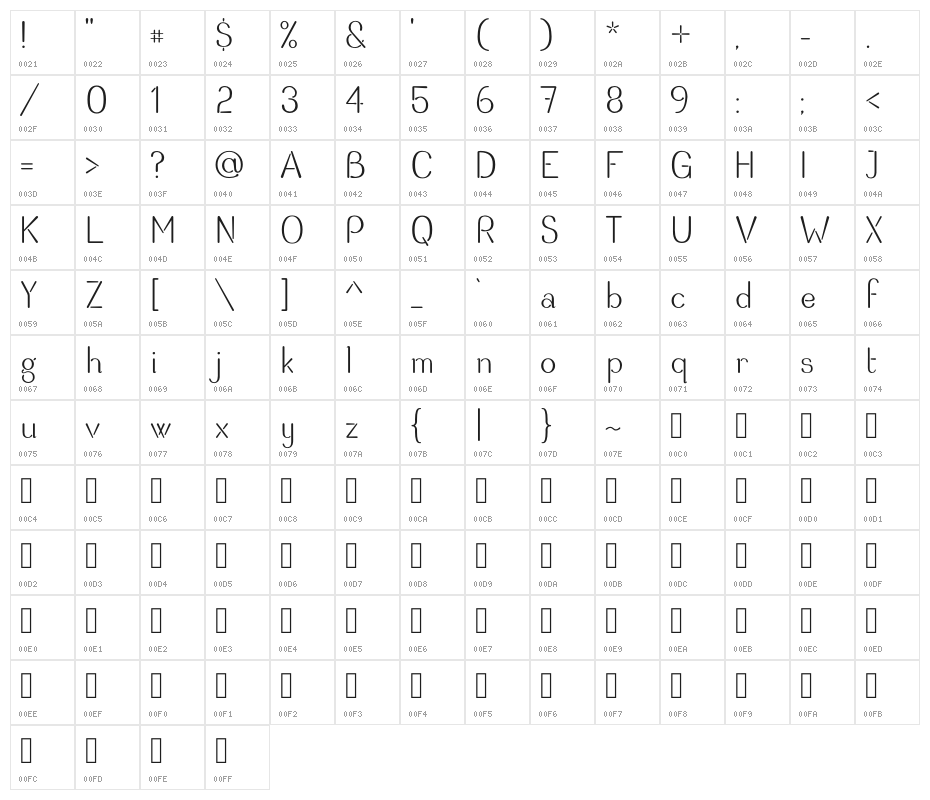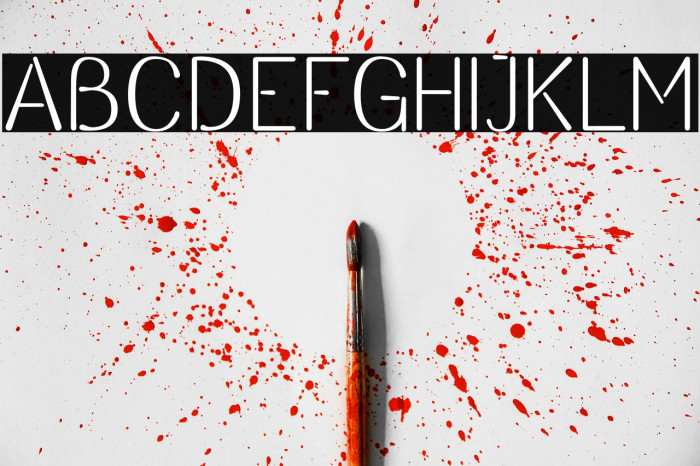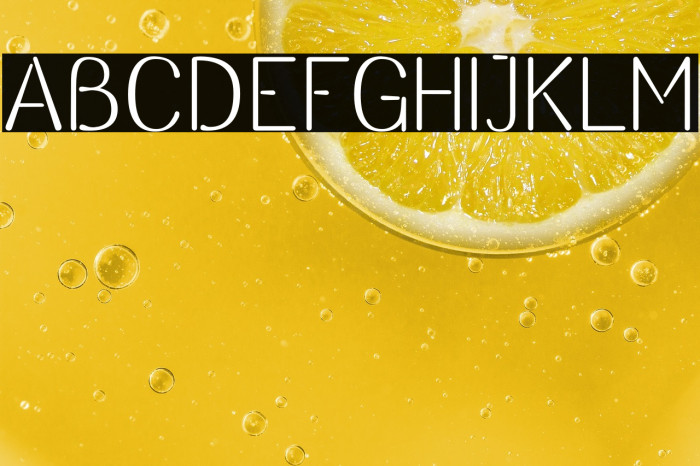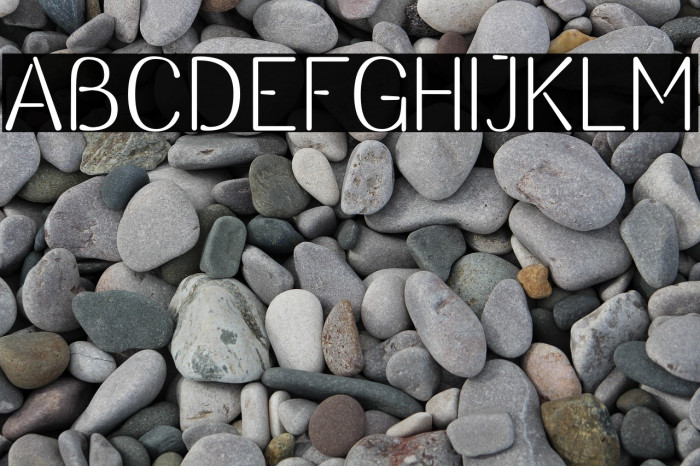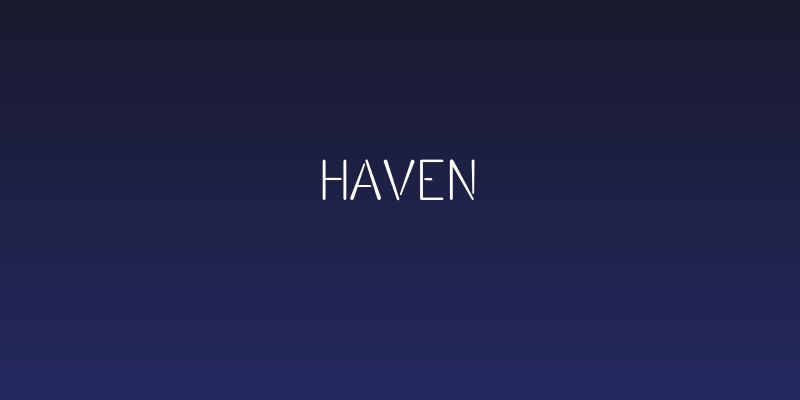
Haven Font
Haven Description
This font features a clean and modern design with a geometric sans-serif style. The characters are well-balanced with a consistent stroke width, giving it a sleek and contemporary appearance. The uppercase letters are slightly taller than the lowercase, providing a subtle contrast that enhances readability. The numerals are clear and distinct, matching the overall aesthetic of the alphabet. Special characters are included, maintaining the uniform style. The font's simplicity and elegance make it versatile for various design applications.
| Proposed Projects | Ideal for branding, web design, advertising, and editorial layouts where a modern and clean look is desired. |